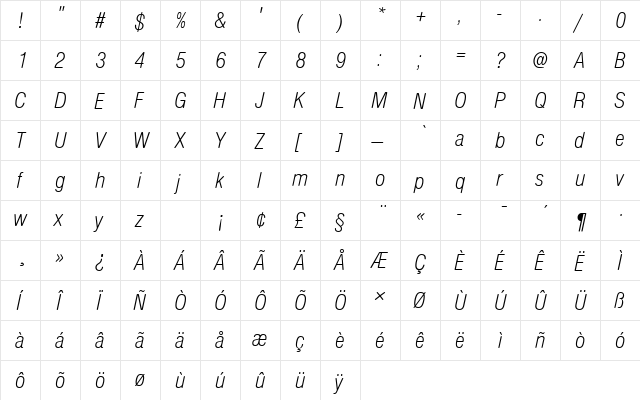
NimbusSanDLigConItaRo1 Regular
Design Context for NimbusSanDLigConItaRo1 Typeface
NimbusSanDLigConItaRo1 is a composed and adaptable typeface that performs quietly and consistently across a wide range of design contexts.